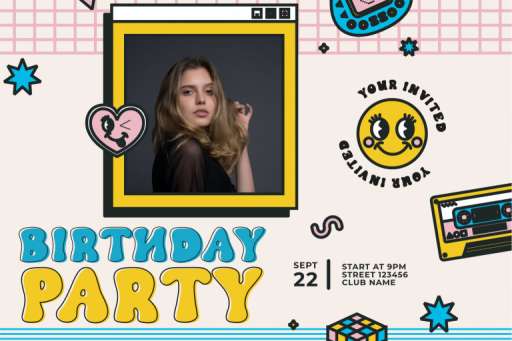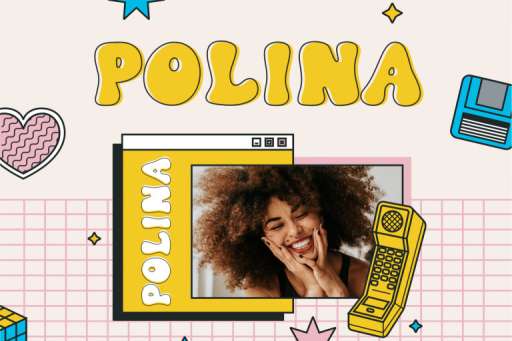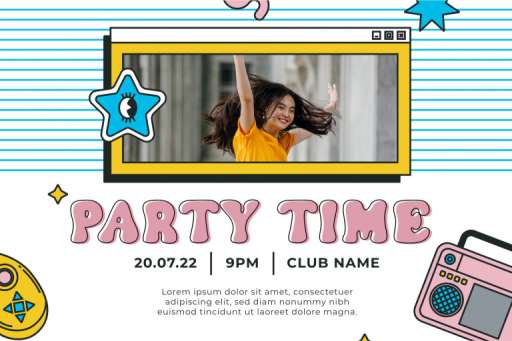
Pure Love Font - Groovy Farmhouse Font From Jimtype Studio
Pure Love Font
Pure Love Outline Font
Pure Love – Retro Groovy Font from Jimtype Studio
Pure Love groovy typeface with a funny and fun feel. Comes in two styles, namely Regular and Outline. When combined, it will be a great visual and practical in use. Pure Love is perfect for all of your craft projects, branding, logos, social media quotes, stickers, posters, vintage designs, wall art, stickers, shirts, quotes, and more!
• Multilingual Support